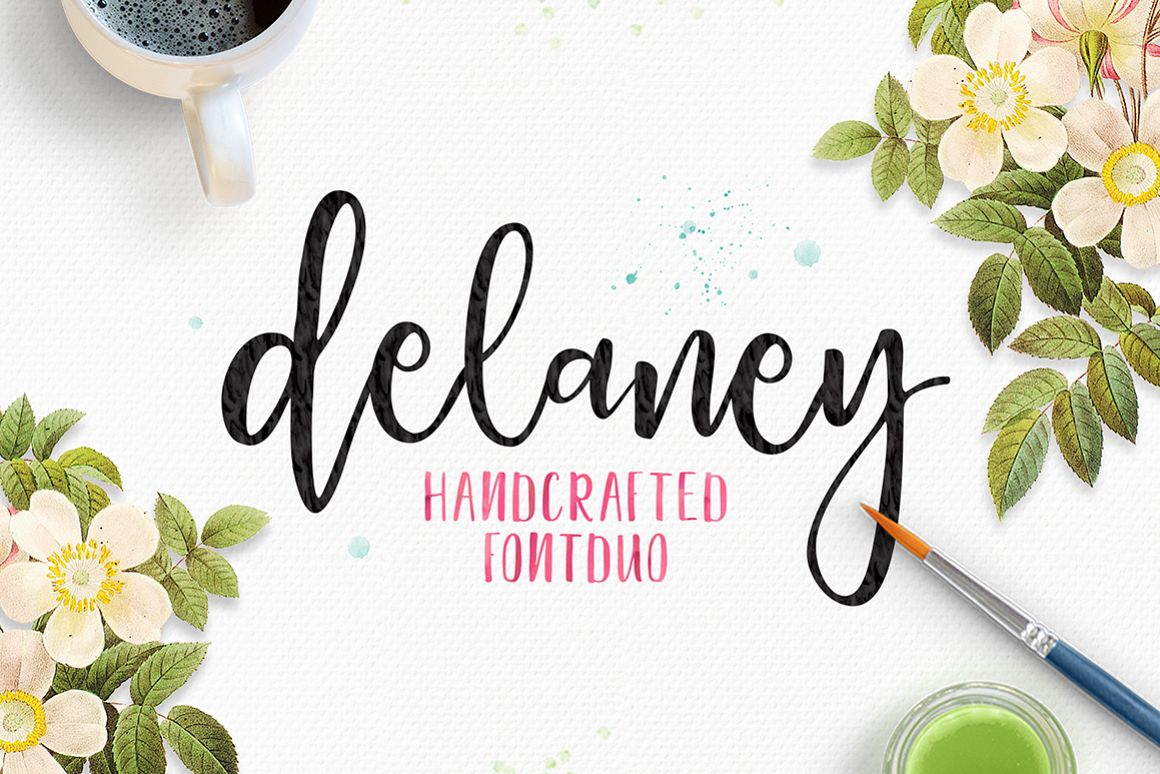
Delaney Script
Delaney Sans
Delaney
Delaney Font Duo
Delaney script is a hand brushed font created with a brush and ink, bold and irregular baseline. Contains a complete set of lowercase, uppercase, alternates, ligatures, punctuation, numbers, and multilingual support.
And additional Delaney sans, working in harmony with Delaney script to create typography awesome creations. Get some inspiration from the preview above.
Contains a complete set of lowercase, uppercase, ligatures, punctuation, numbers, and multilingual support.
This font ideal for use in watercolor design or lettering style bold hand, such as blog header, posters, wedding elements, t-shirt, apparel, cover books, business cards, greeting cards, branding, merchandise,
invitations and handmade quotes and more.